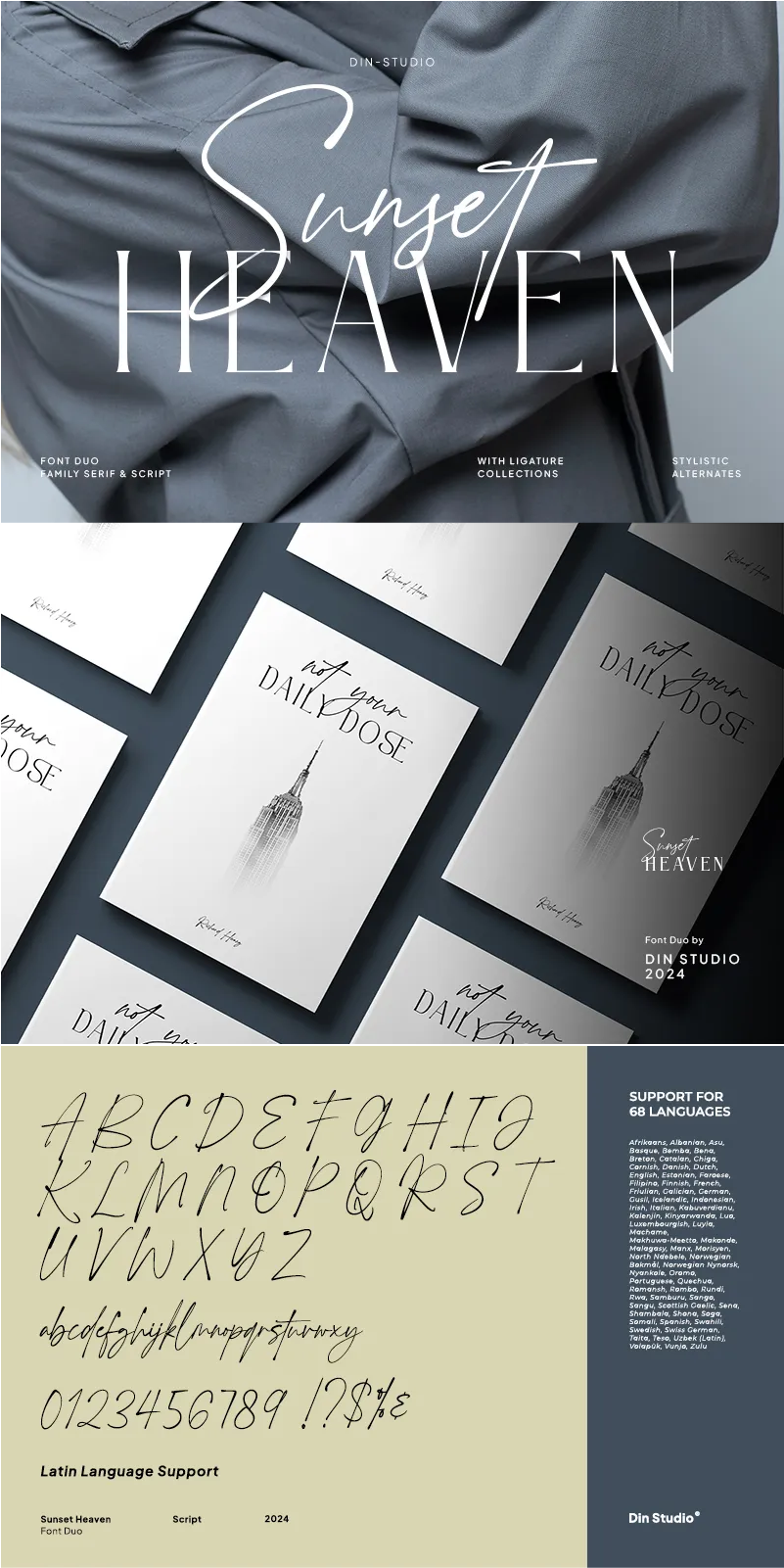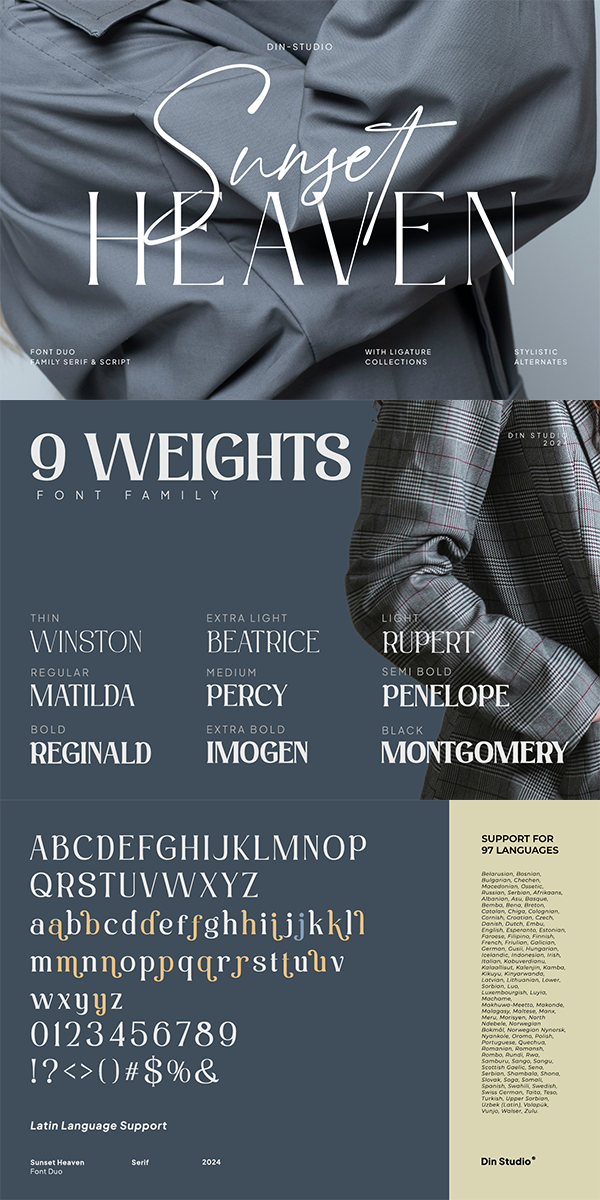
Sunset Heaven Font
About Sunset Heaven
Sunset Heaven a captivating duo font that combines the timeless serif with the graceful script. The serif font in Brighter Paradise exudes classic beauty with its uppercase letters. Each letter is meticulously crafted to embody grace and sophistication, making it ideal for adding a touch of timeless elegance.
Complementing the serif font is the script font, designed to resemble cursive handwriting with its fluid strokes and elegant curves. This script font adds a sense of personal touch to the designs. Together, the two fonts in Sunset Heaven create a perfect harmony, allowing designers to effortlessly blend classic sophistication with contemporary style. In addition, enjoy the features here.